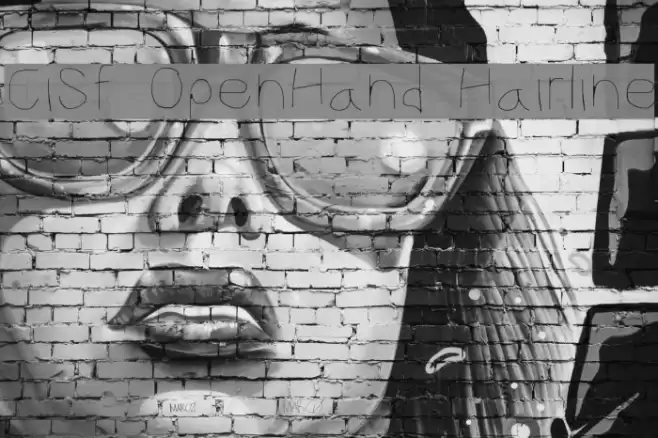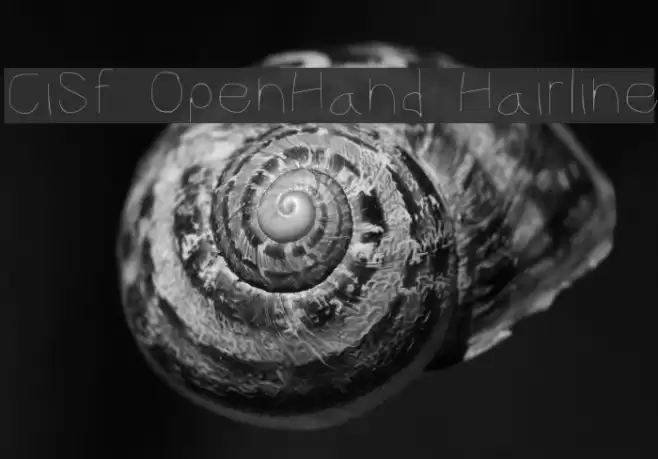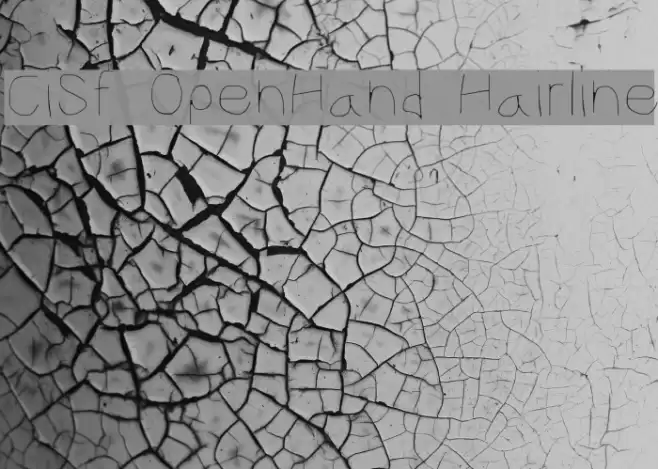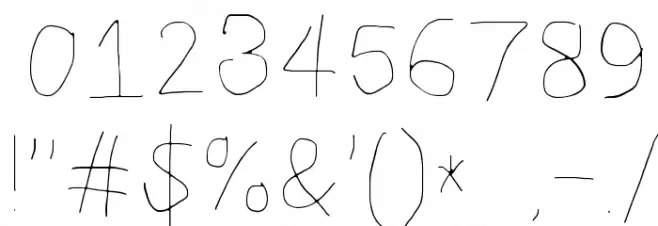
CiSf OpenHand Hairline Font
CiSf OpenHand Hairline Description
This font features a delicate, hand-drawn style with thin, consistent strokes that give it a light and airy appearance. The characters are slightly irregular, adding a personal and informal touch. The uppercase letters are tall and narrow, while the lowercase letters maintain a similar width, creating a harmonious balance. The numerals and special characters follow the same thin, elegant line work, ensuring consistency throughout. This font's simplicity and subtle charm make it suitable for projects that require a gentle, approachable aesthetic.
A delicate, hand-drawn font with thin, consistent strokes and a personal touch from Uncategorized fonts.
- Proposed Projects: Ideal for personal invitations, greeting cards, children's book illustrations, and casual branding projects.
- Weight: Light
- Overall Style: Casual
- Use Case: Invitations, Greeting cards, Illustrations